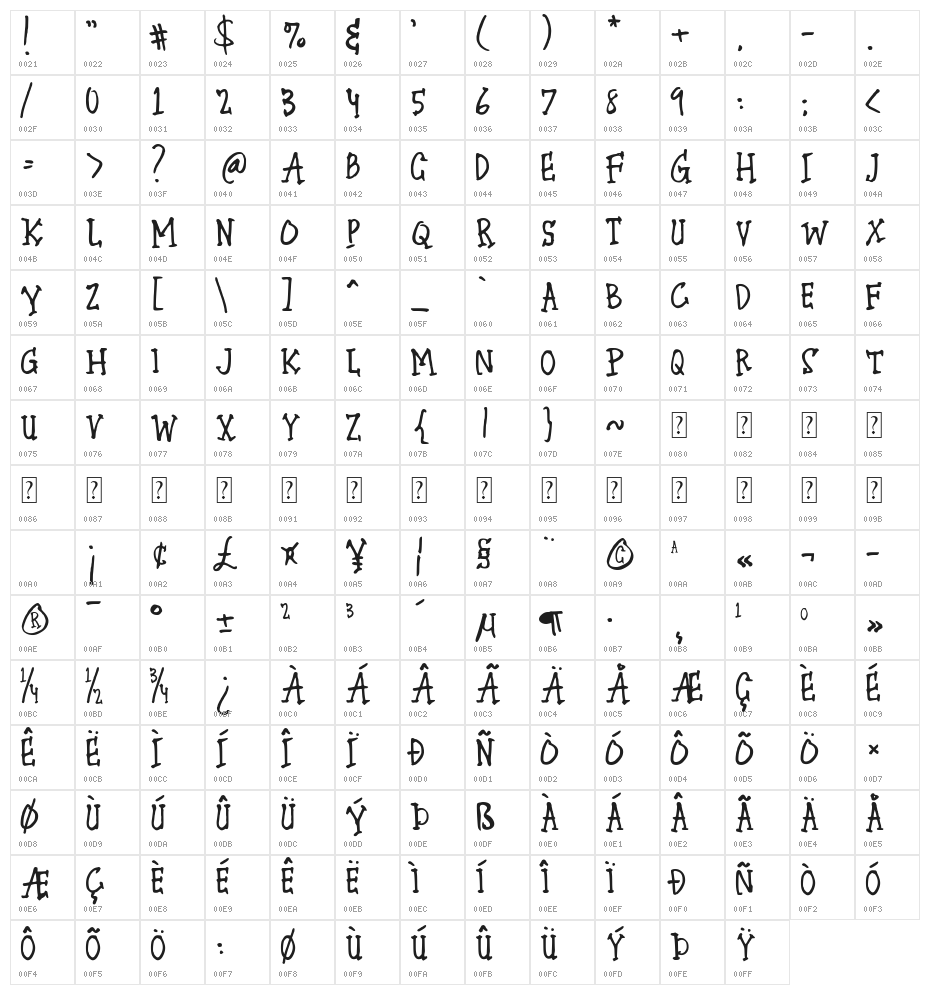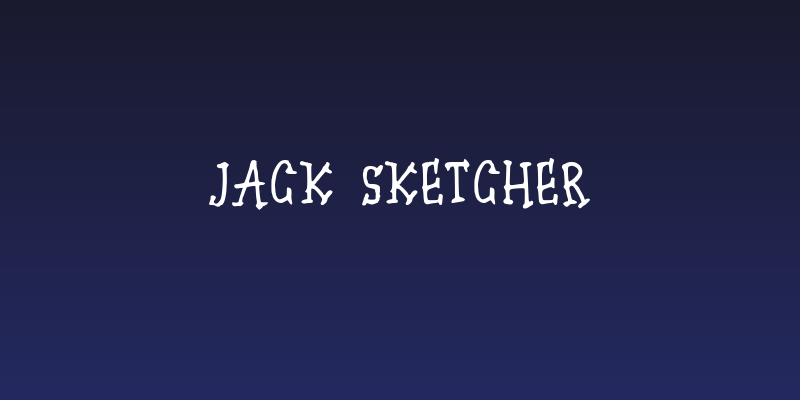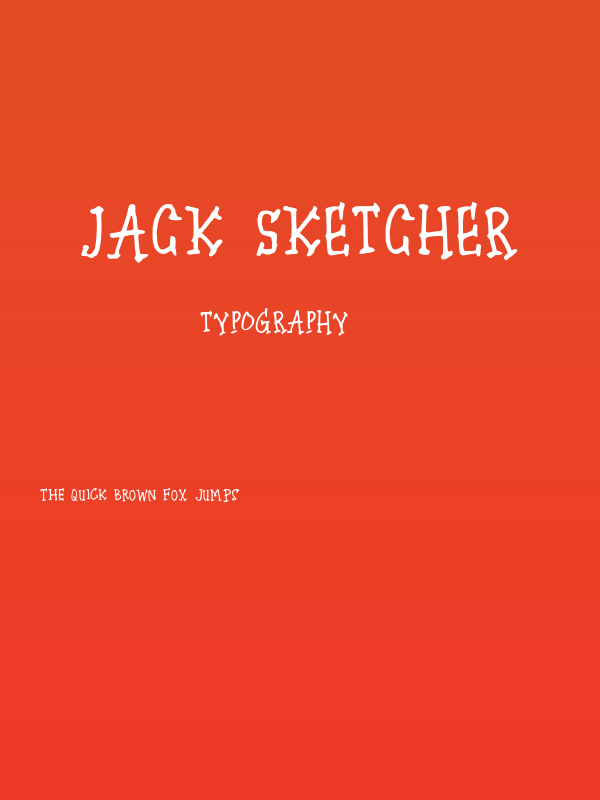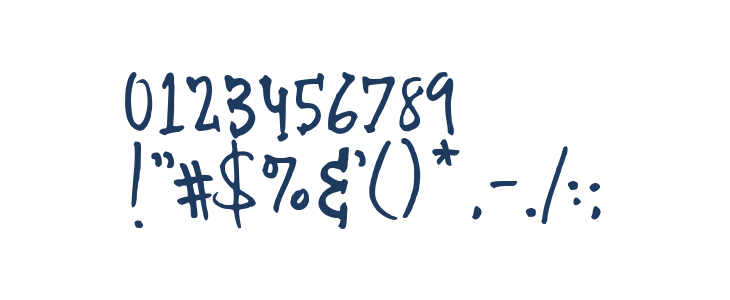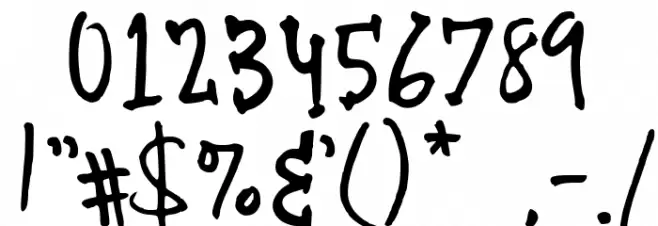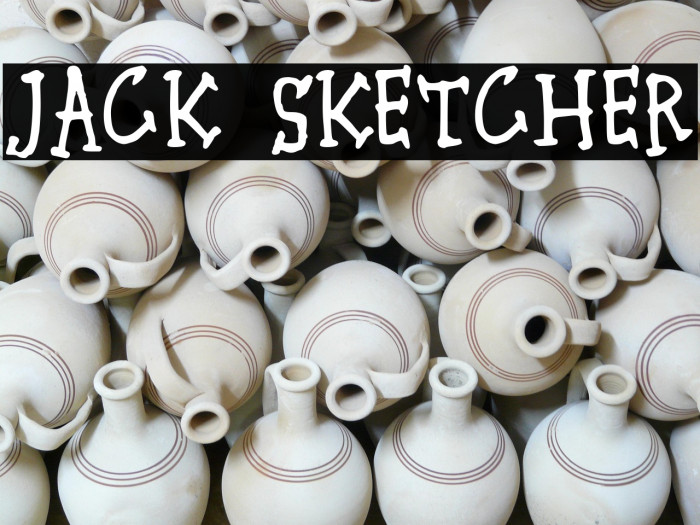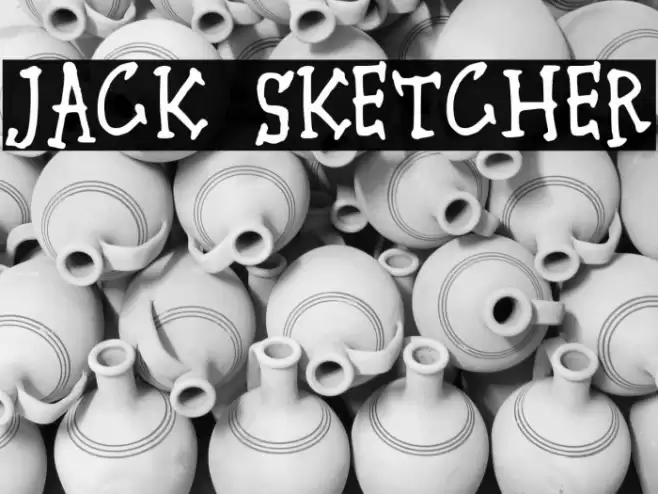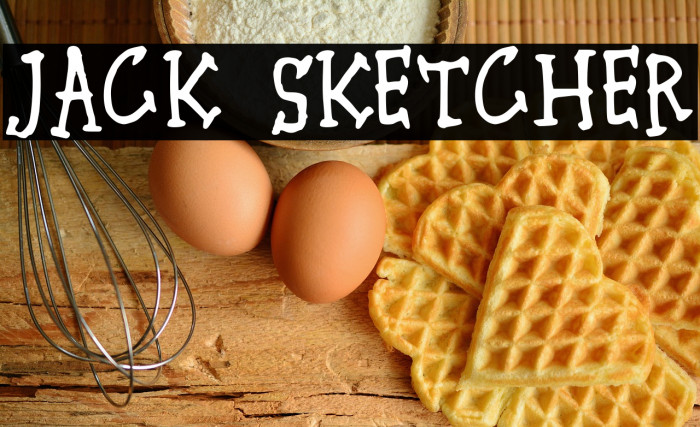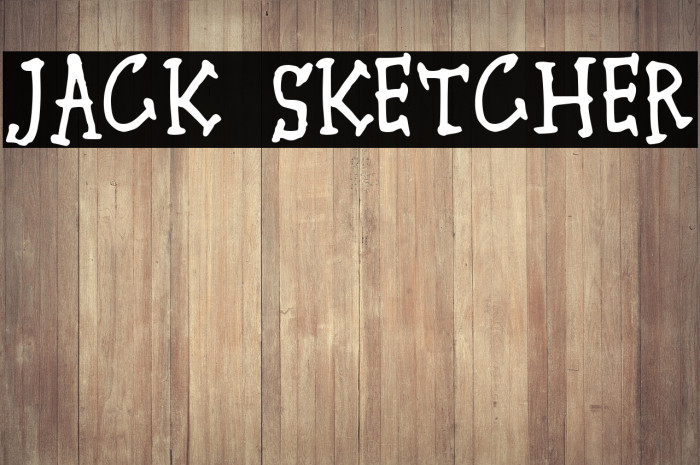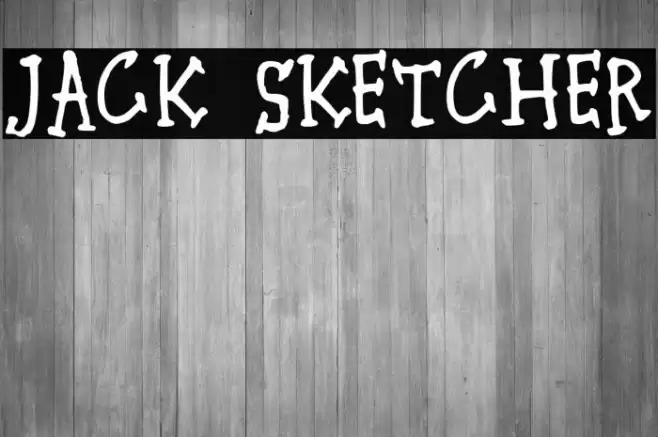
Jack Sketcher Font
Jack Sketcher Description
This font features a playful and hand-drawn aesthetic, characterized by its uneven strokes and whimsical appearance. The letters have a sketch-like quality, with varying thickness and a slightly irregular baseline, giving it a casual and artistic feel. The uppercase and lowercase letters maintain a consistent style, with rounded edges and a slightly exaggerated form. Numbers and special characters follow the same playful design, making the font suitable for creative and informal projects. Its unique style stands out, making it ideal for designs that require a personal touch.
| Use Case | Headlines, Logos, Creative projects |
| Proposed Projects | Ideal for children's books, greeting cards, creative posters, and informal branding. |